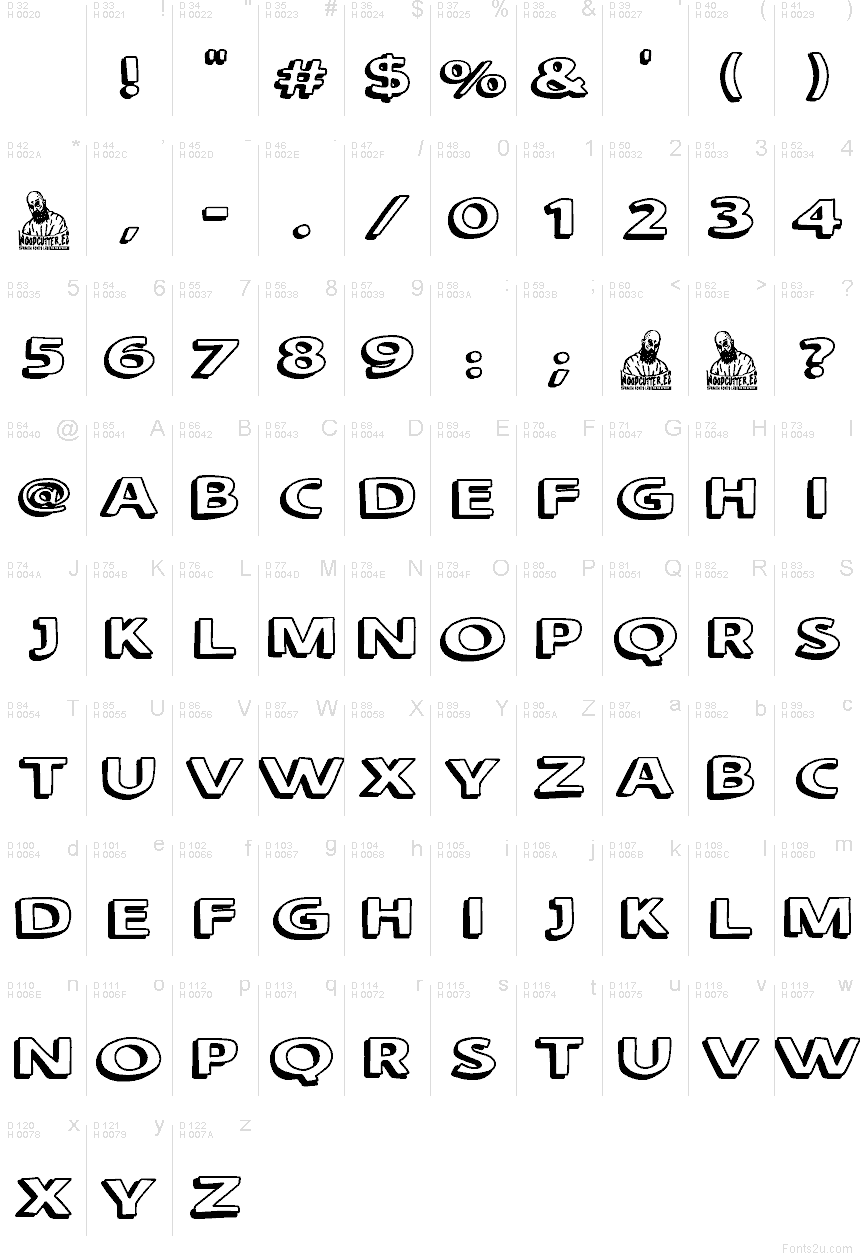
Trash Culture
Trash Culture font by Woodcutter is a free 3D display typeface that comes in loud, bold, and slightly unhinged. Chunky letterforms with thick outlines and a built-in shadow give it that photocopied-flyer-meets-graffiti-wall energy, like something ripped from a ’90s zine and blown up on a street poster. The forms feel inflated yet tough, with a rubbery, inked edge that grabs attention fast and doesn’t let go.
Using Trash Culture, you can crank up the attitude on gig posters, skate or streetwear branding, underground event flyers, zines, YouTube thumbnails, and sticker designs. This free font works best at big sizes where its 3D depth and bold outlines have room to breathe. For supporting text, pair it with a clean, narrow sans-serif so the headline chaos stays readable and the overall layout doesn’t feel overloaded.